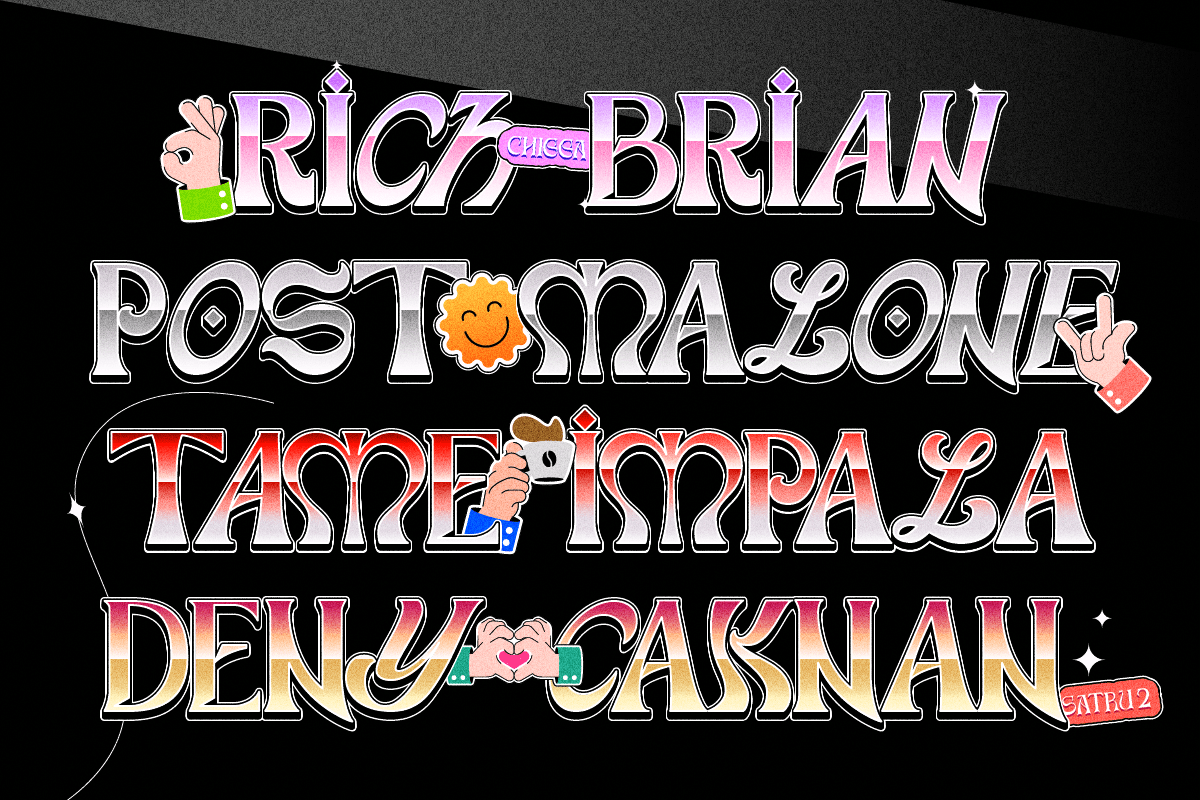
Anti Design Display Font – The manifestation of how we define balance is Anti Design. We believe that balance should not be fixed, having the same size or worth. Balance can be achieved through contrast, colour, or anything else, and it can also be asymmetrical. By combining several types of fonts, such as italic, serif, script, and vintage, we may establish an asymmetrical balance while maintaining harmony.
- 189 Gyplhs
- Uppercase, numbers, punctuation, Alternate
- Multilingual support